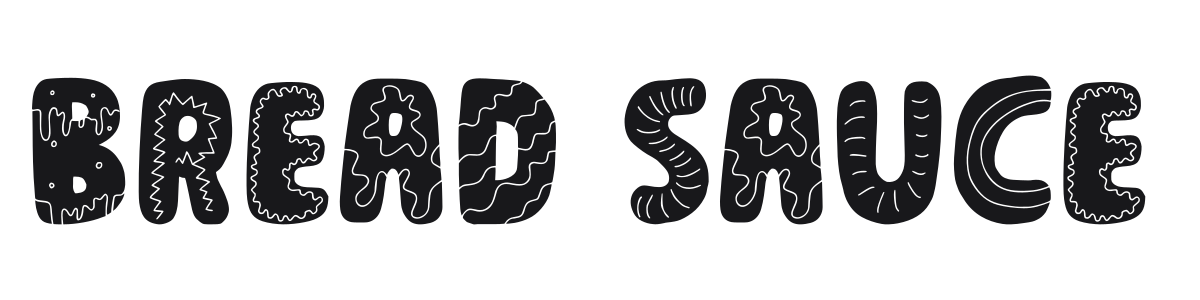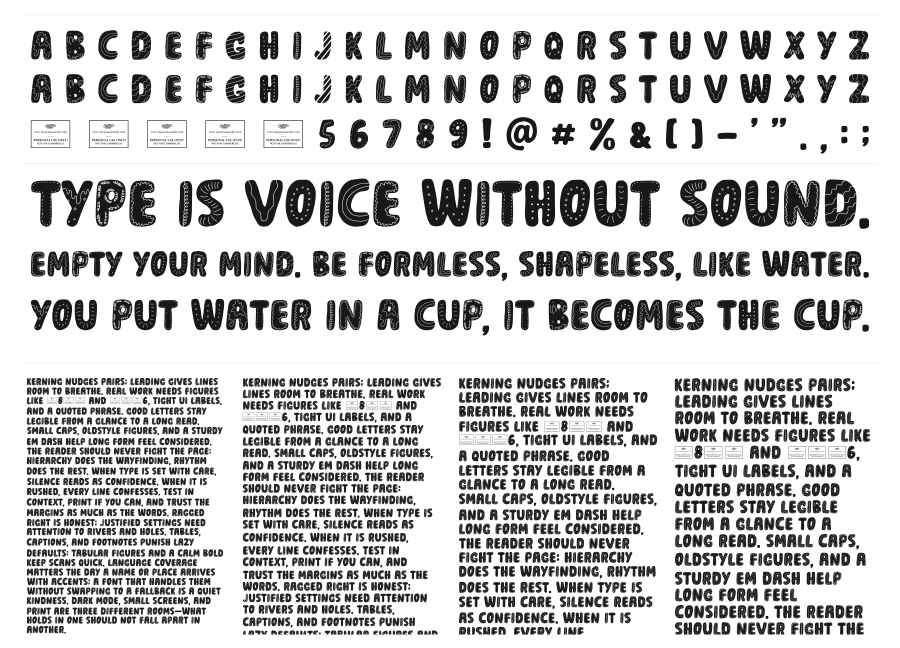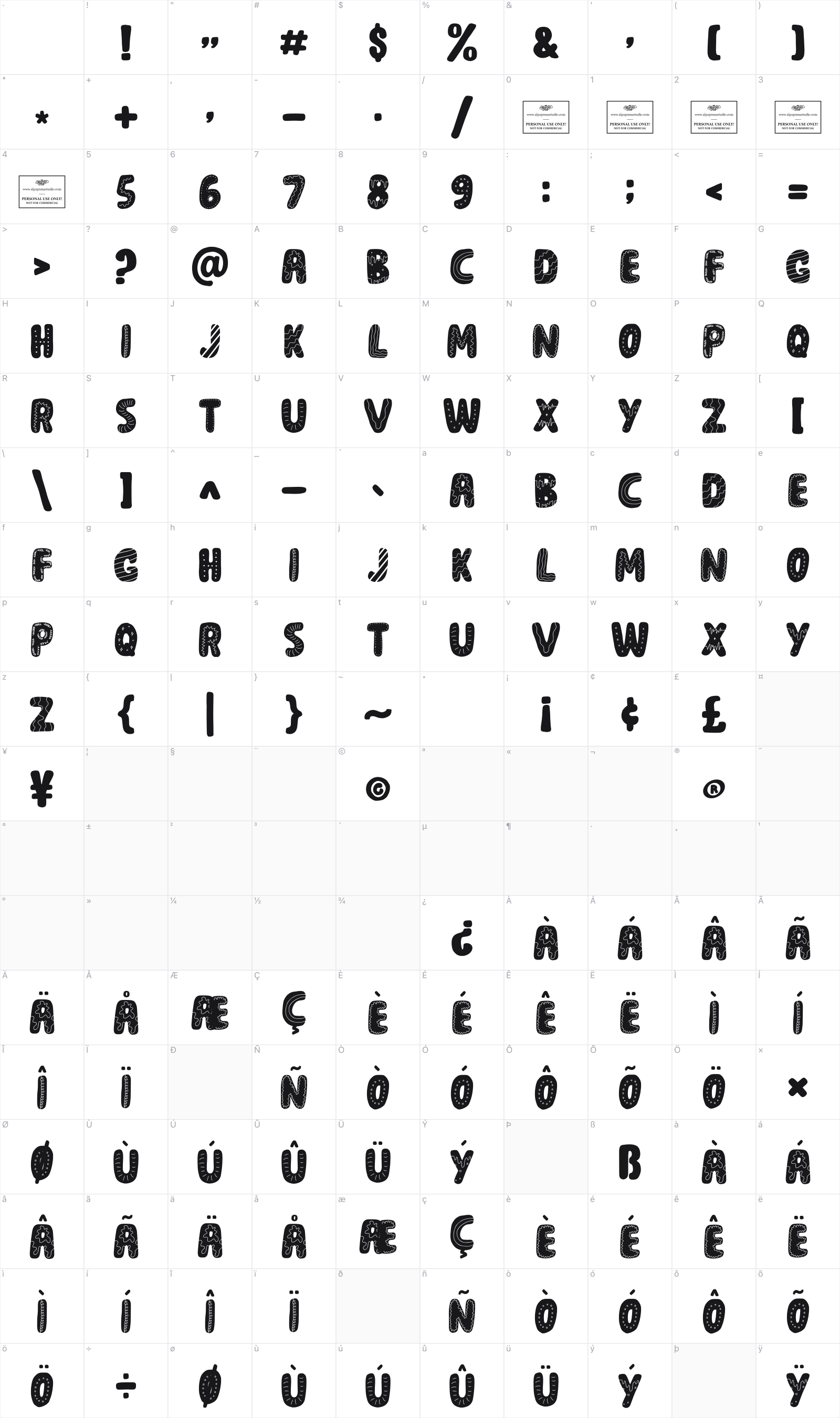
Bread Sauce
Bread Sauce is a chunky, hand-drawn display font where every letter is stuffed with squiggly internal details that look like bread crumb texture or playful stitching. The characters are bold and bubbly, landing somewhere between a cartoon doodle and artisan food branding. It works best at large sizes where its quirky decorative fills can breathe.